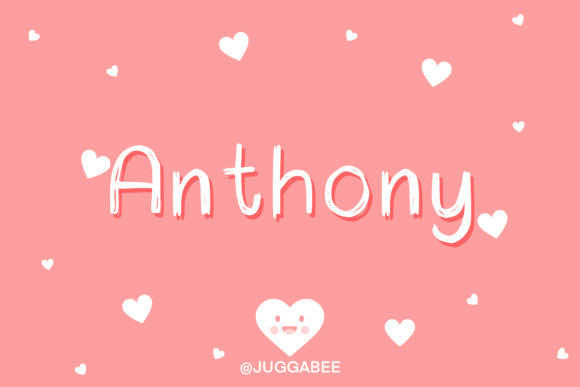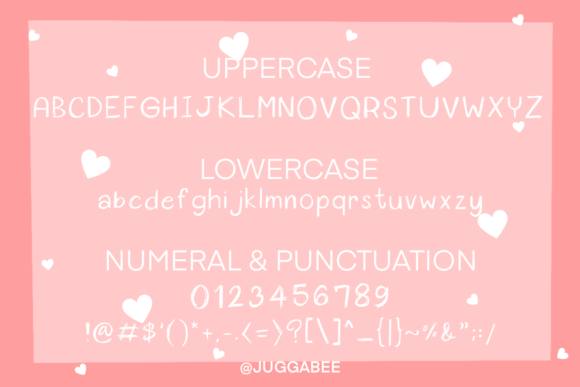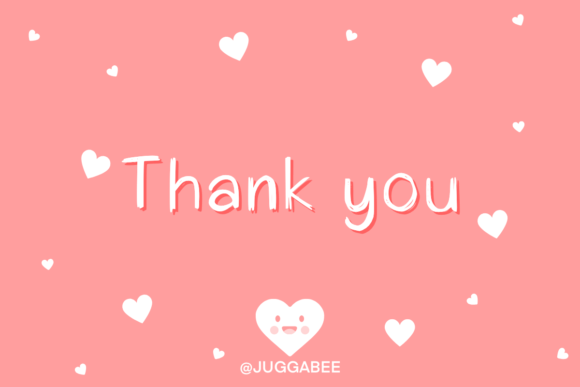
Anthony
About Anthony
Anthony fonts This beautiful handwritten typeface is great for adding a personal touch to your designs. this font can be used for logos, branding, invitations, stationery, wedding designs, social media posts, and much more!